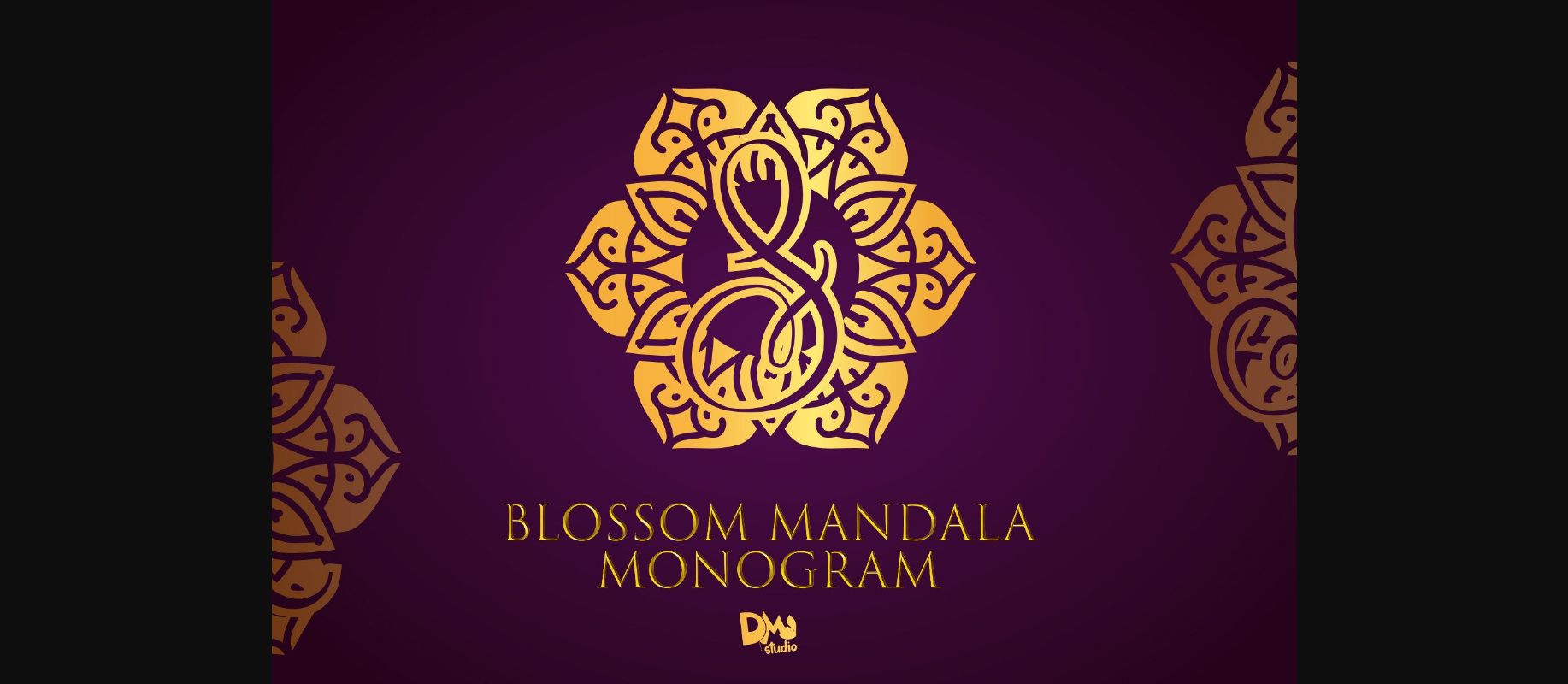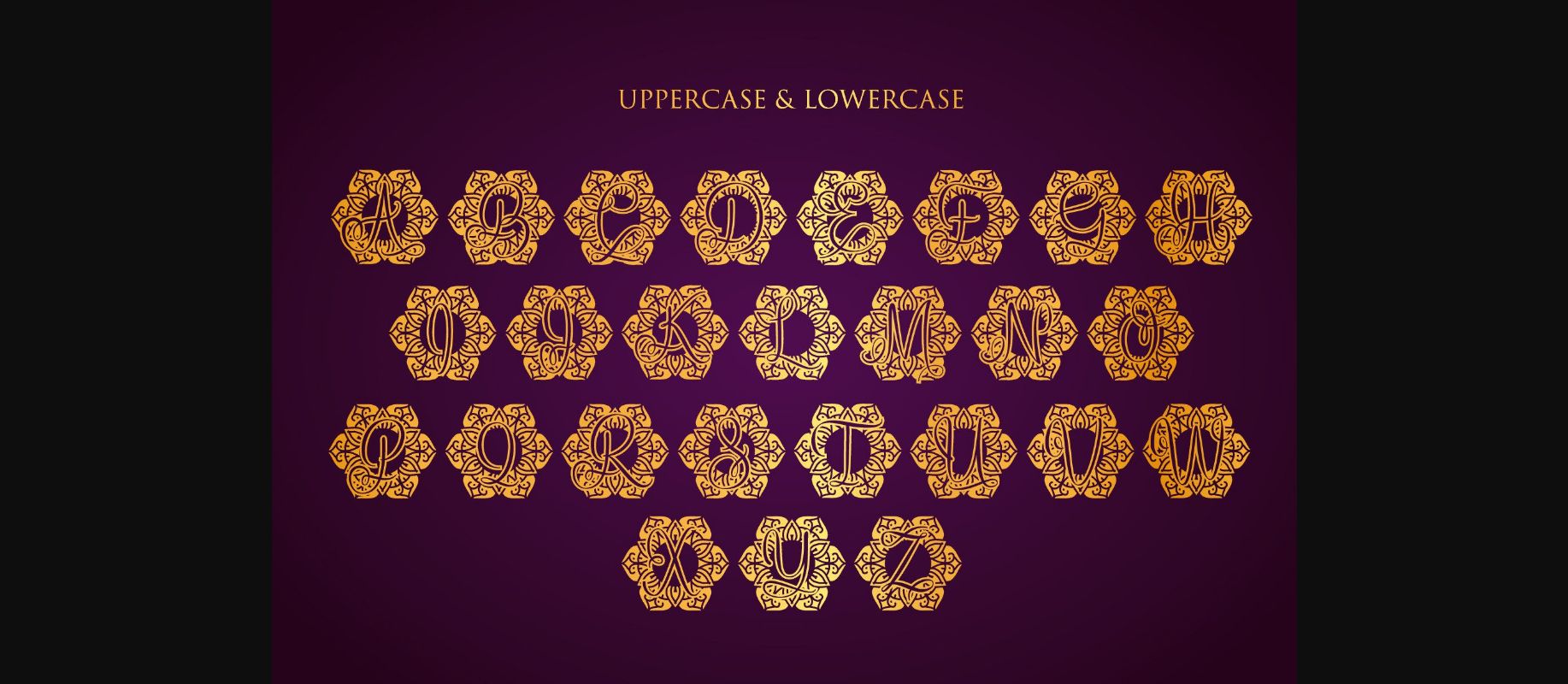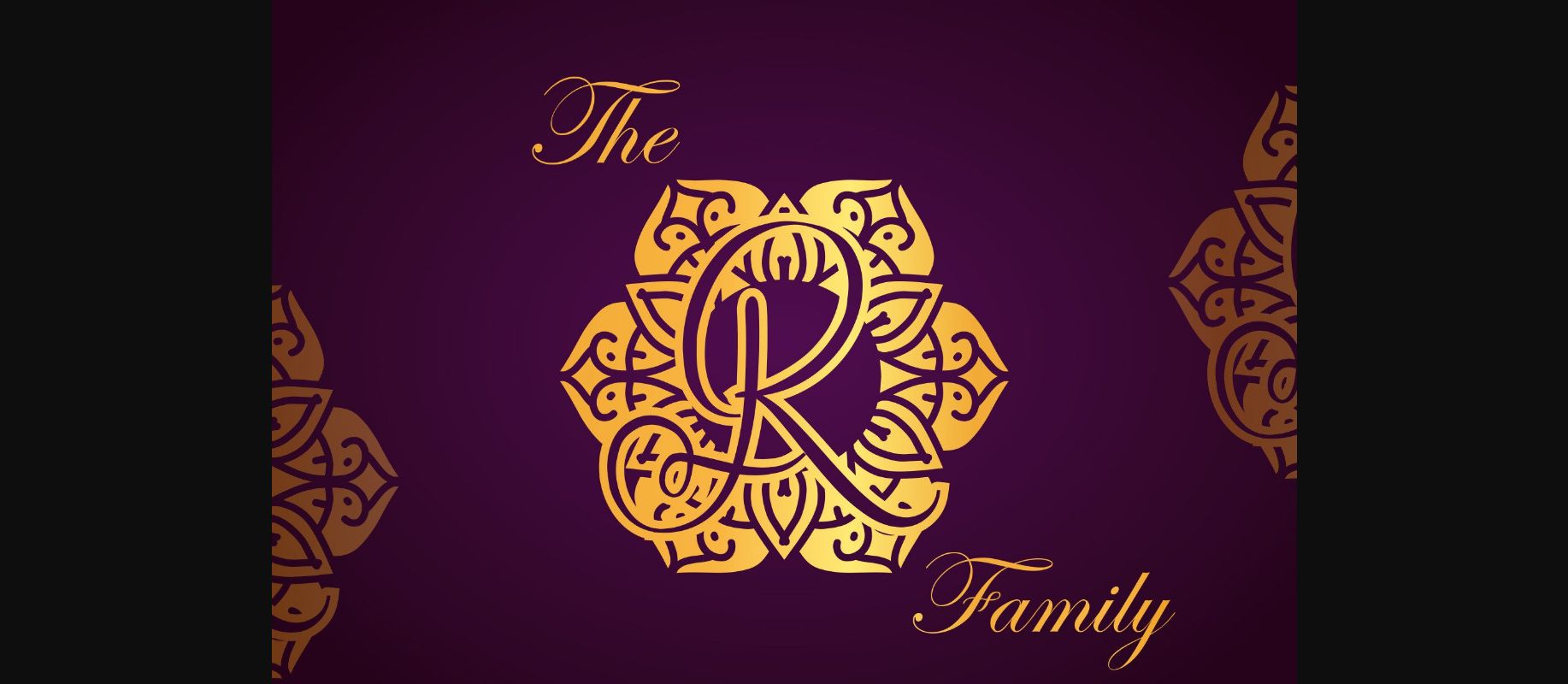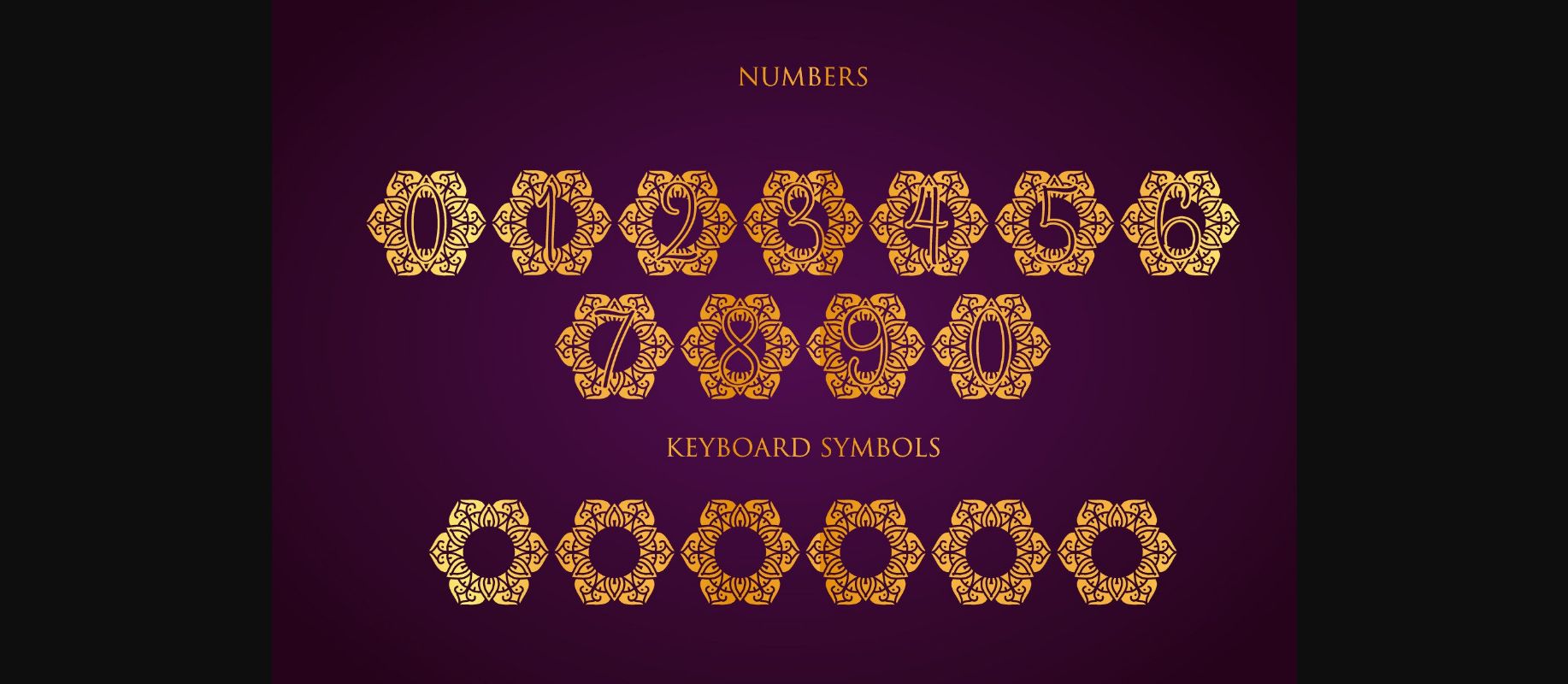
About Blossom Mandala Monogram Font
Blossom Mandala Monogram is an elegant and unique decorative font, inspired by the elegance of mandala art.
Use it for your craft, logo, or anything in your collection.